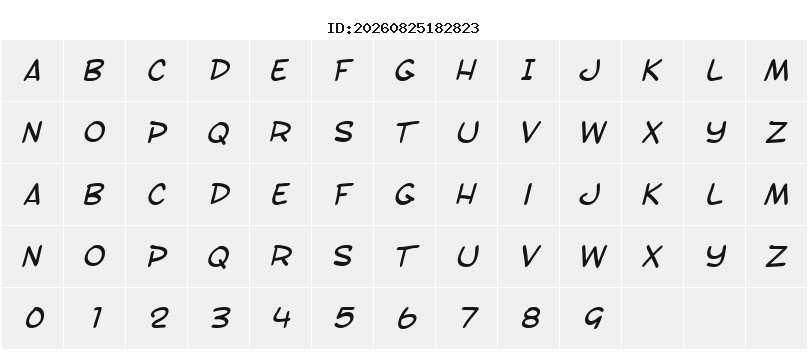
SF Toontime Preview
• Font Name: SF Toontime
• Full Font Name: SF Toontime Italic
• Designer: ShyFonts Type Foundry
• Description: SF Toontime Italic is a trademark of the ShyFonts Type Foundry.
About SF Toontime.ttf
SF Toontime.ttf is a modern, elegant sans-serif font designed for ultimate readability and visual harmony. Perfect for branding, headlines, web design, and print materials.